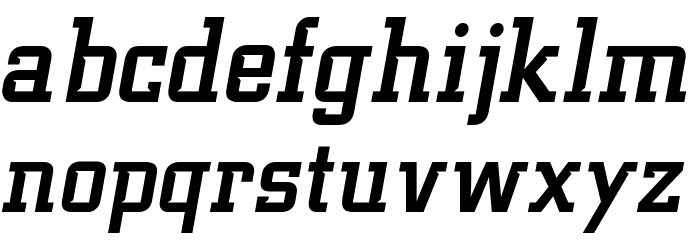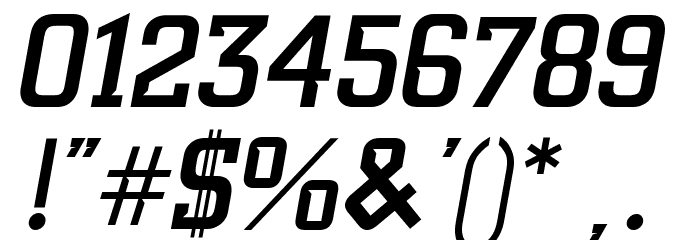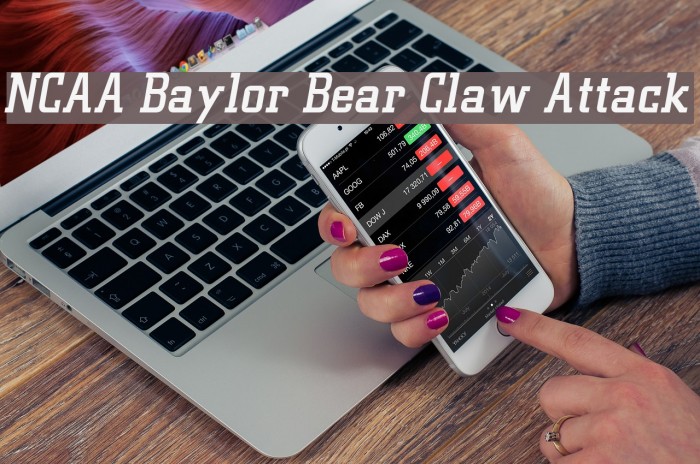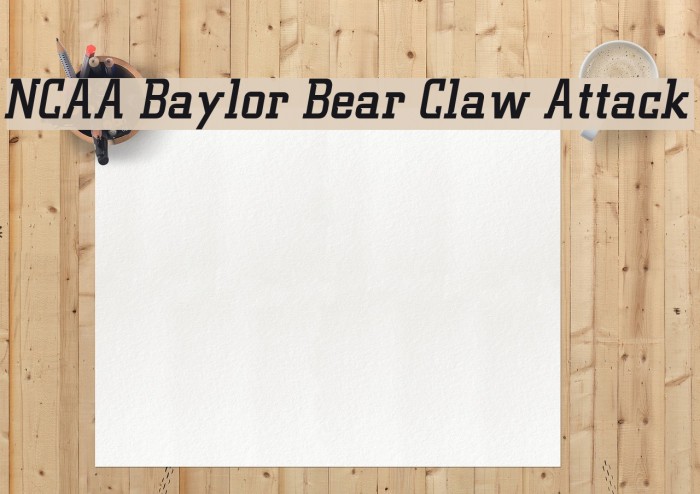
NCAA Baylor Bear Claw Attack Font
This font features a bold and dynamic style with a strong presence. The characters are slightly slanted, giving a sense of motion and energy. The uppercase letters are tall and commanding, while the lowercase letters maintain a consistent style with a slightly condensed form. The numerals are robust and align well with the overall aesthetic. Special characters are designed to complement the boldness of the font, making it suitable for impactful designs. The font's unique style is ideal for projects that require a strong visual statement.
A bold, slanted font with a dynamic and energetic style.
- Proposed Projects: Ideal for sports branding, posters, headlines, and any design that requires a strong, energetic presence.